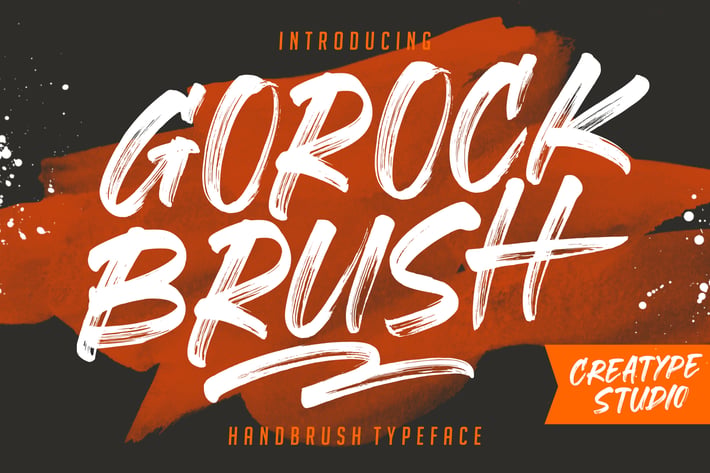
Gorock Brush Typeface
Gorock Brush a hand brush font which with a realistic style that truly looks hand painted.
Gorock Brush is perfect for branding projects, logo, wedding designs, social media posts, advertisements, product packaging, product designs, label, photography, watermark, invitation, stationery and any projects that need handwriting taste.
Ton of glyphs
Ligatur, Alternate & Swashes